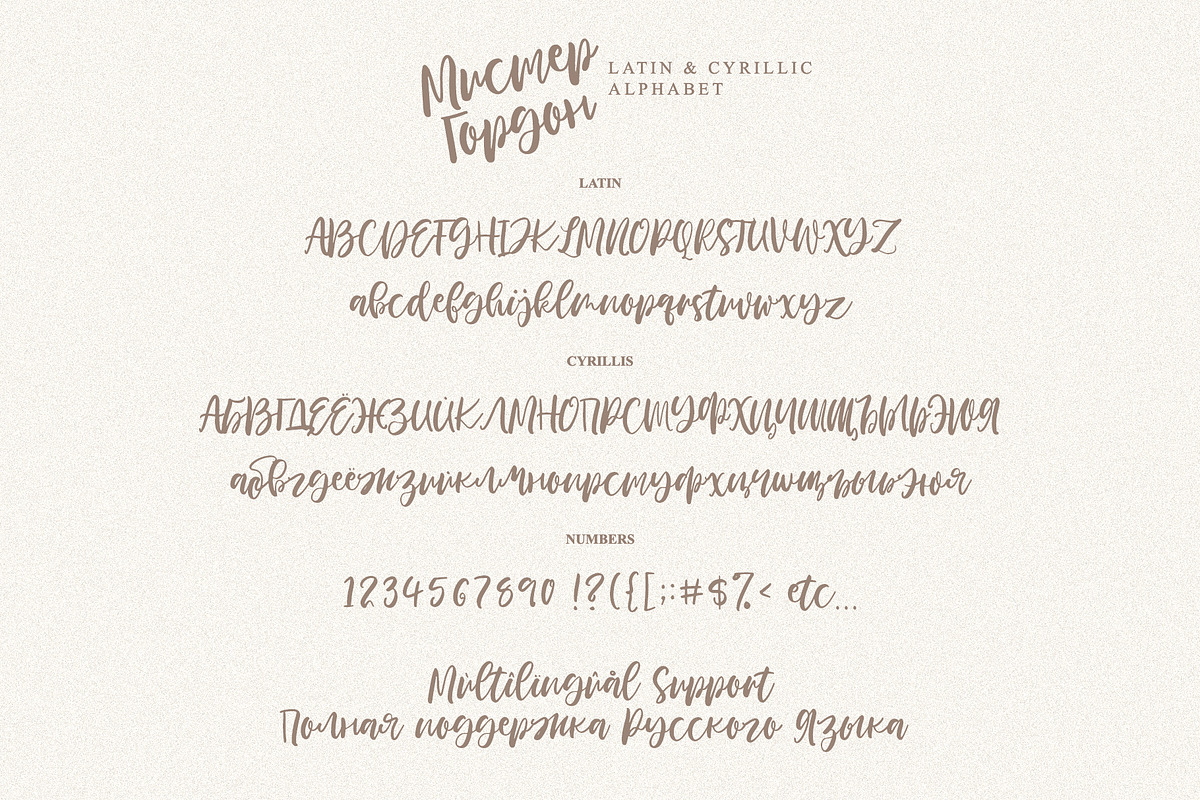
MISTER GORDON
Hello, friends. This is my new font, classic calligraphy. The font supports both Cyrillic and Latin layout. You can write an attractive invitation or issue menu. Classic style will fit perfectly into any project
Шрифт поддерживает как кириллическую так и латинскую раскладку. Вы можете писать привлекательные приглашения или оформлять меню. Классическое начертание идеально впишется в любой проект :)
Regular Script
Latin languages support
Cyrillic languages support
Uppercase and lowercase
Numbers and punctuation